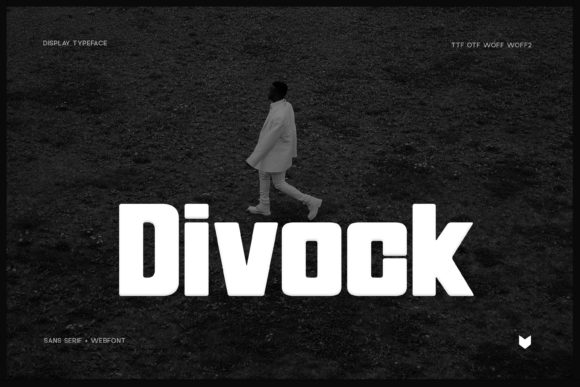
Divock Font
Behold, Divock Font, the game-changer in the world of typography, ready to elevate your designs to new heights. This remarkable display font, meticulously crafted by Foxtype, embodies boldness, thickness, and a striking letterform that commands attention. A true masterpiece, Divock is the ultimate choice for those seeking to make a lasting impression through their visual creations.
Unleash your creativity and let Divock Font ignite your imagination. Its assertive touch adds an electrifying energy to web designs, making them captivating and unforgettable. With Divock, your business cards transcend the ordinary, leaving a lasting impact on potential clients and partners.
But Divock's versatility extends far beyond the digital realm. Its powerful presence shines through in print, adding an artistic flair to posters, flyers, and marketing materials. Whether you seek to create eye-catching headlines, compelling logos, or captivating social media graphics, Divock Font is your trusted companion, transforming your ideas into visual masterpieces.
Immerse yourself in the world of Divock Font and discover its boundless possibilities. Its unique character adds an artistic flair to screen printing, transforming ordinary designs into extraordinary creations. Imagine your designs coming to life with Divock's bold strokes, capturing the attention of your audience and leaving them in awe.
With Divock Font, you possess the power to convey messages with impact, create designs that resonate, and leave an indelible mark on your audience. It's more than just a font; it's a gateway to a world of creativity and expression, empowering you to turn your visions into reality.